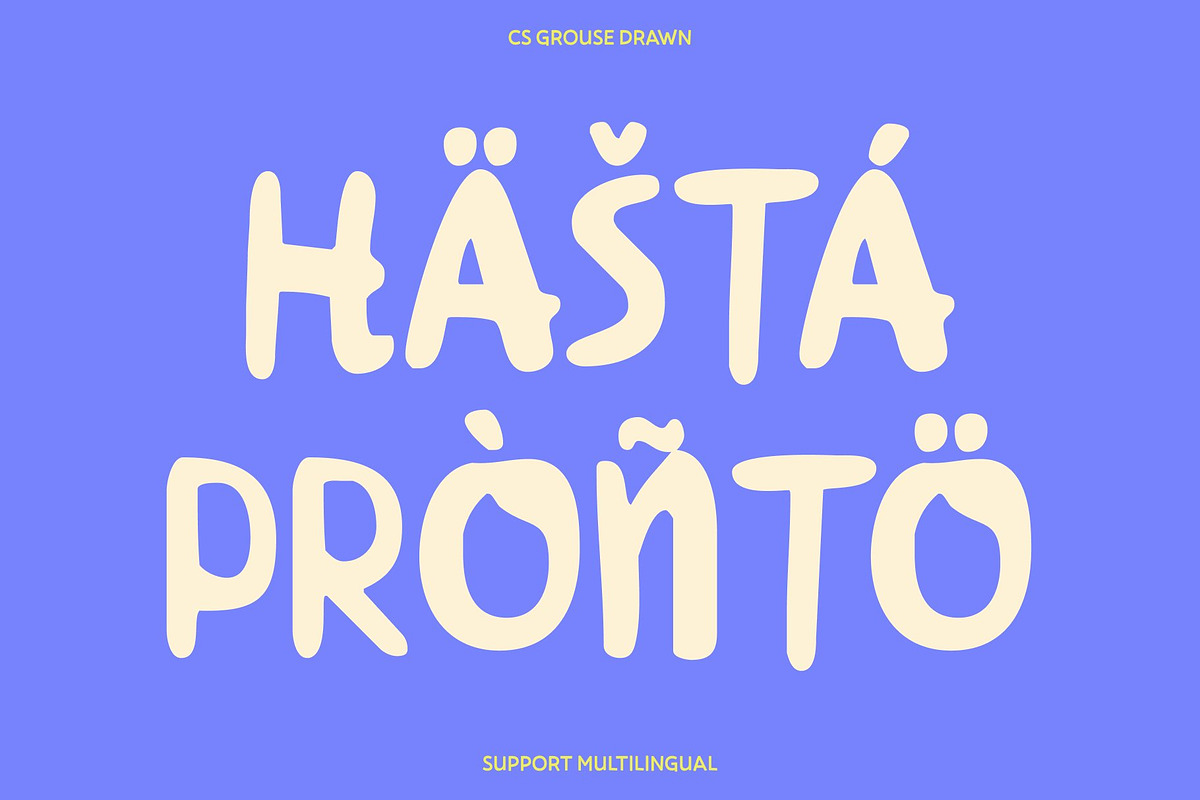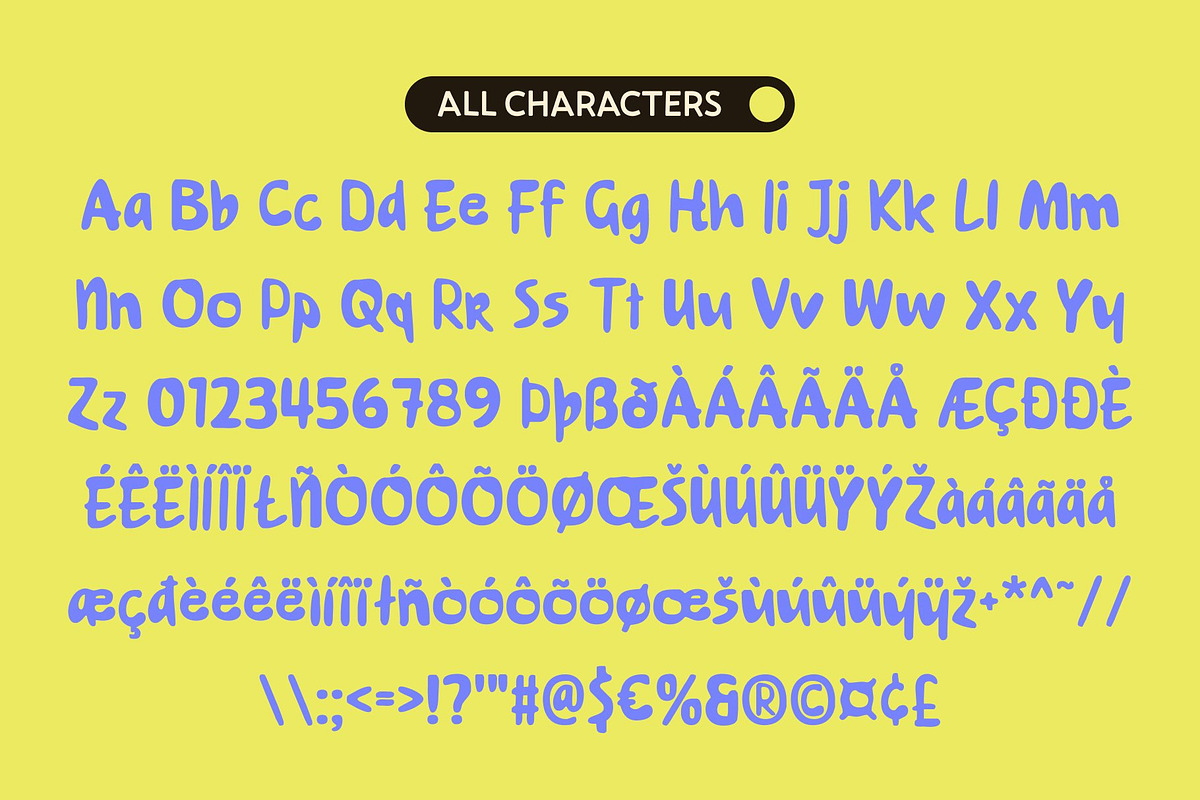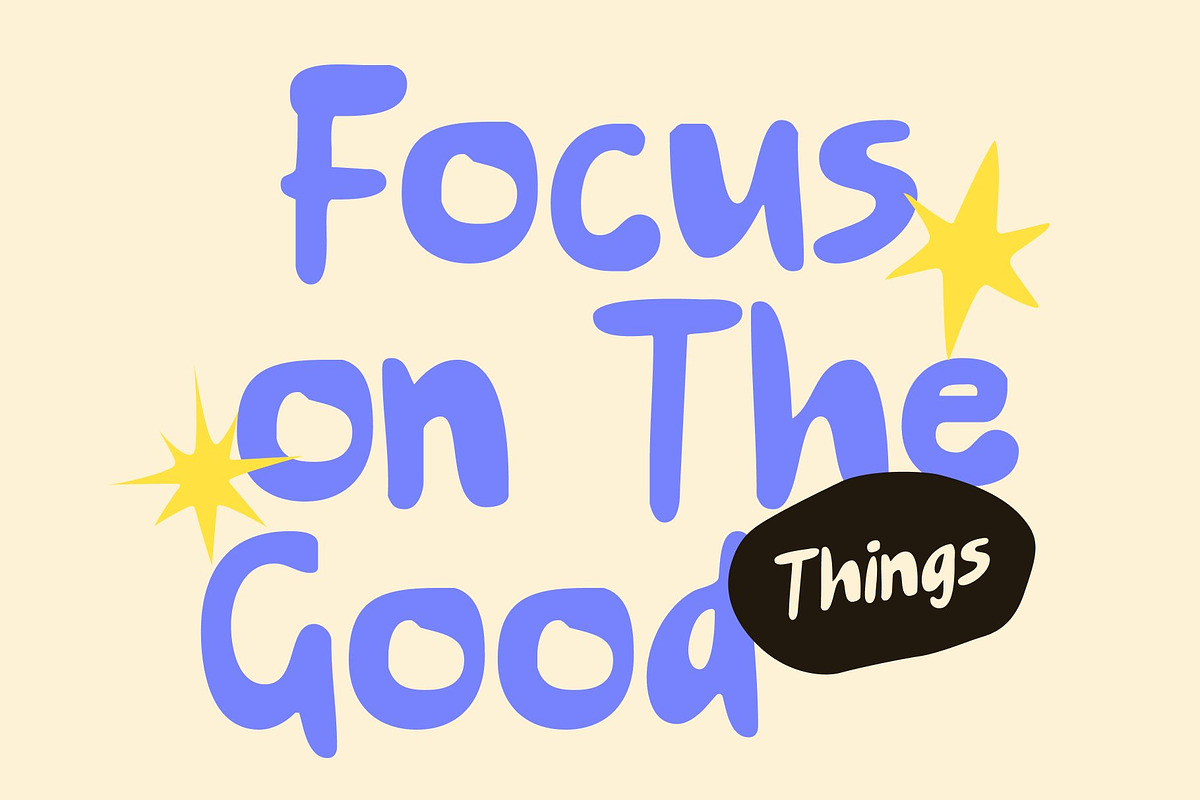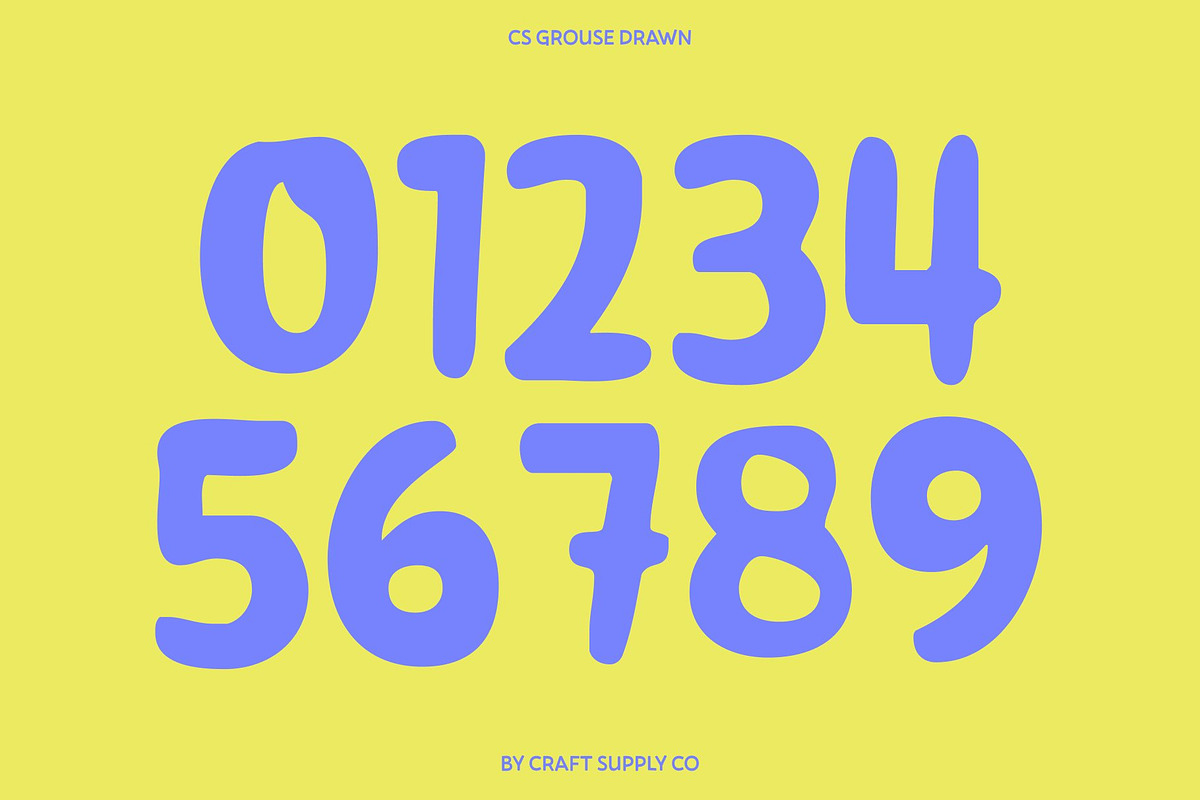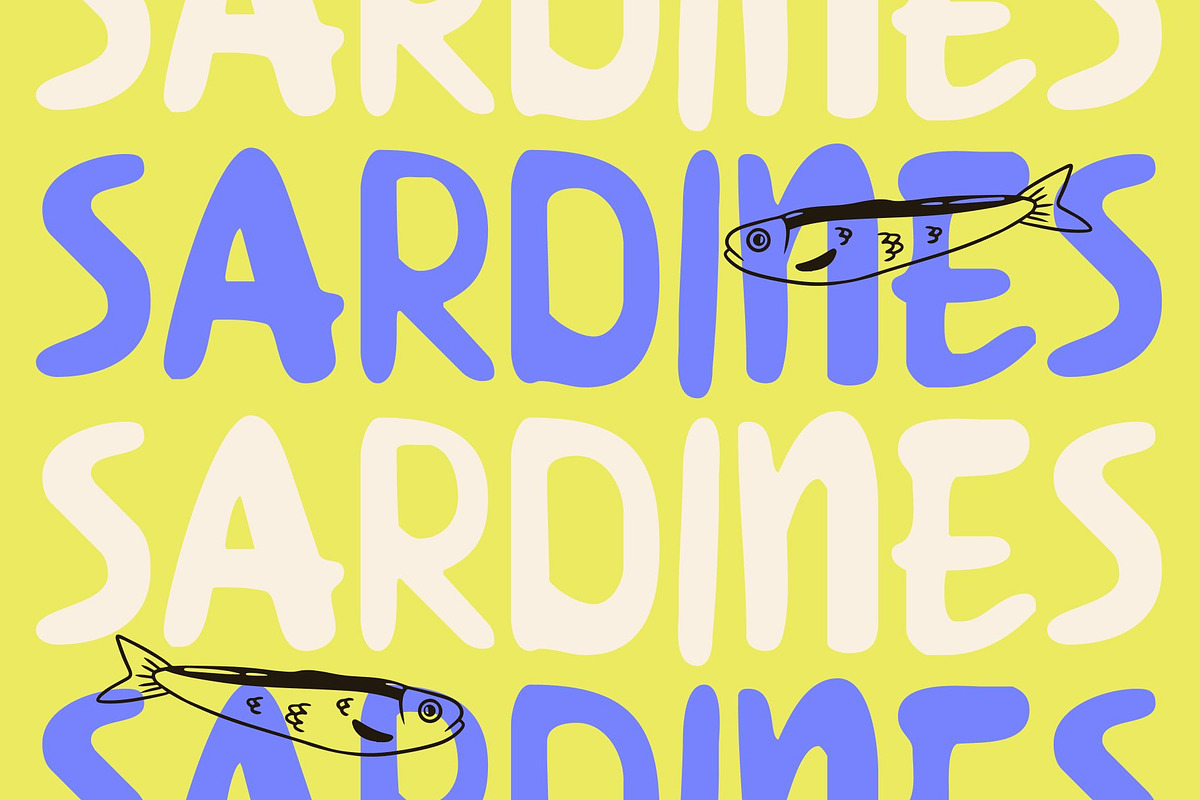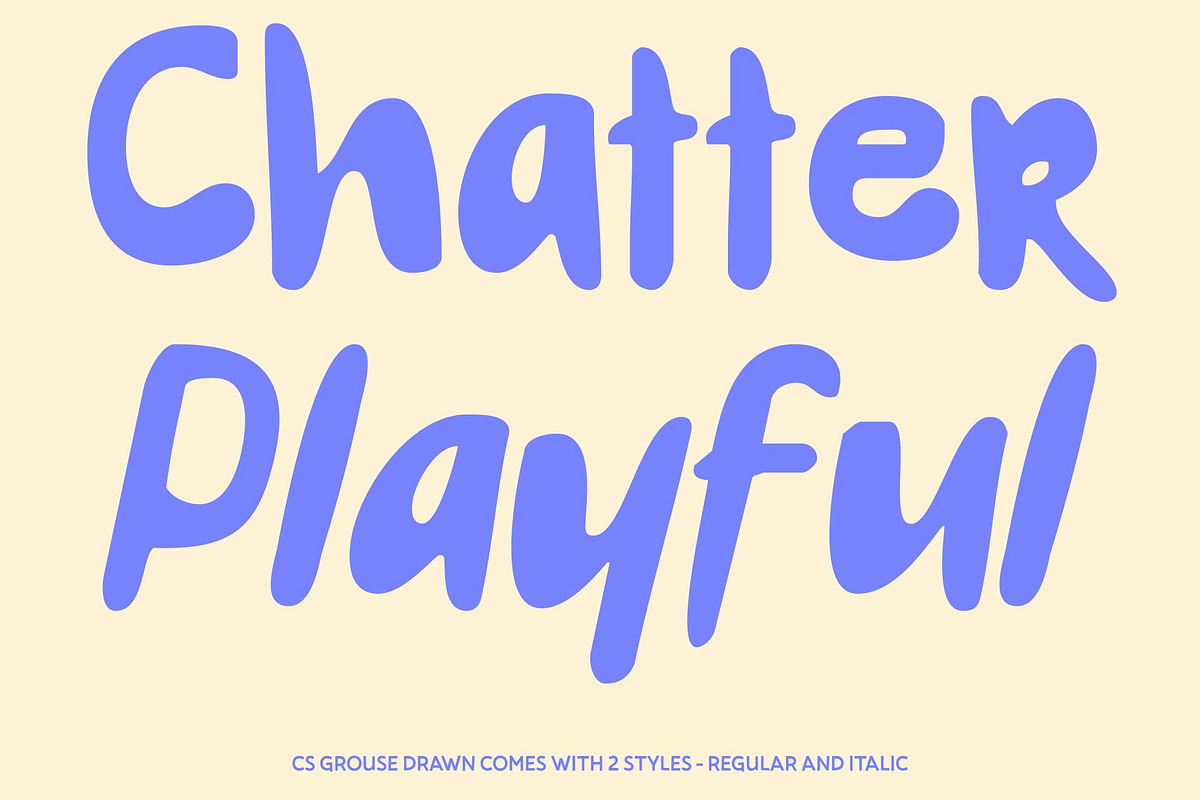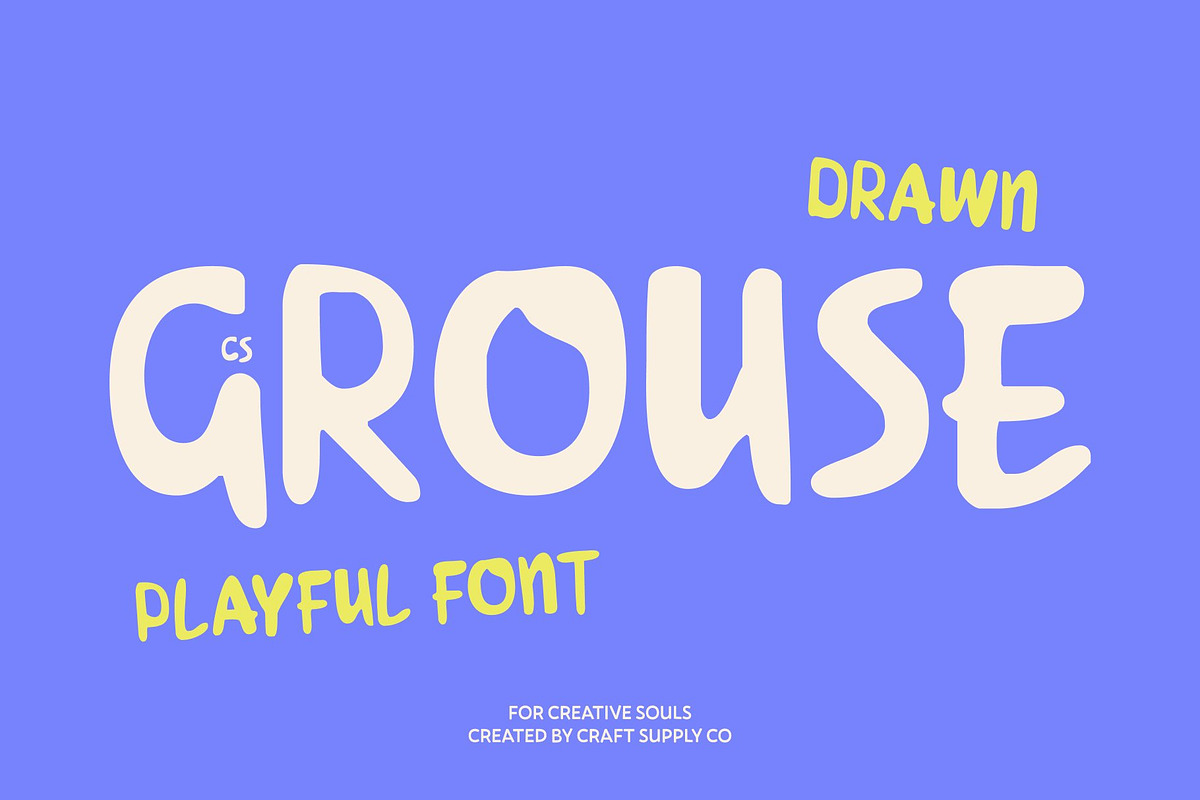
CS Grouse Drawn
CS Grouse Drawn – Playful Modern Display Font
Modern Handwritten Style This is a modern display font that blends clean construction with a relaxed handwritten feel. Its neat yet natural letterforms create a smooth visual flow, while the drawn effect adds subtle handcrafted details that give the font warmth and authenticity. This combination results in a style that feels polished but never stiff.
Playful and Cheerful Vibe Designed to radiate joy and friendliness, brings a playful, cheerful personality to your typography. The hand-drawn essence softens its structure, making the font feel approachable, lively, and full of positive energy perfect for designs that want to feel fun and engaging.
Clean Yet Expressive Shapes Each character is carefully crafted to balance clarity and expression. The proportions ensure excellent readability, while gentle irregularities introduce movement and charm. This harmony between order and spontaneity allows this font to stand out visually without sacrificing legibility.
Perfect for Creative Projects This font works beautifully in titles, posters, branding, packaging, social media graphics, and event materials. Its fresh, friendly, and expressive look makes it ideal for projects that celebrate creativity, originality, and modern playful design, leaving a memorable impression every time.